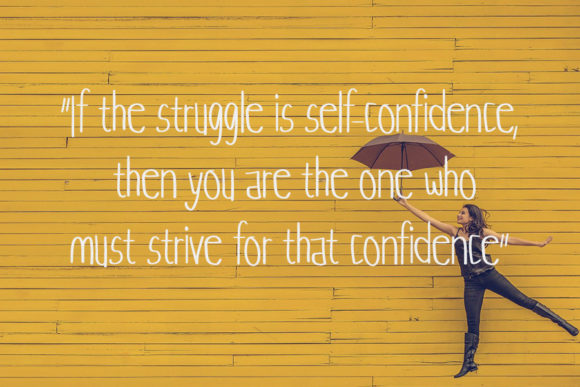
The Perfect California Dream: Introducing California Font
Have you ever stumbled upon a beautifully designed magazine or brochure that caught your eye? The moment you saw it, you knew you wanted to create something just as stunning. For designers, the quest for the perfect font is a never-ending journey. But what if I told you that there’s a font that embodies the carefree spirit of California, perfect for making your designs shine?
Meet the California Font, a simple yet elegant handwritten font designed for maximum readability. With its clean lines and well-spaced letters, this font is ideal for magazine titles, name tags, labels, and any other project where clarity is key. Its versatility makes it a valuable asset for designers, allowing them to create a wide range of designs that exude a relaxed, West Coast vibe.
California Font Key Features
- Unique Characteristics: California Font features a distinctive, cursive script with a relaxed, casual feel, making it ideal for use in creative and informal contexts.
- Font Style: California Font is a script font, characterized by its flowing, handwritten style, which adds a touch of elegance and sophistication to any design.
California Font Review
When I first saw California Font, I was immediately drawn to its laid-back vibe ✨. The font’s clean lines and rounded edges evoke the feeling of a California sunset, and it’s perfect for creating a relaxed and casual atmosphere. The font is highly legible, making it ideal for body text, and it pairs well with a variety of font combinations.
One of the things I love about California Font is its versatility ✨. It’s suitable for a wide range of designs, from logos to brochures, and it’s especially great for creating a retro or vintage look. The font also comes in a range of weights, from light to bold, which gives designers a lot of flexibility when it comes to creating contrast and visual interest.
- ⚠️ The font may not be the best choice for formal or corporate designs, as it can come across as too casual.
- ⚠️ California Font may not be suitable for designs that require a lot of fine details, as the font’s rounded edges can make it difficult to read at small sizes.
Overall, I think California Font is a great addition to any designer’s toolkit. While it may have some limitations, its versatility and laid-back vibe make it a great choice for a wide range of designs. With its clean lines and highly legible text, it’s a great font for creating a relaxed and casual atmosphere.
Tips for Getting the Most Out of California Font
For the best results, use California Font in combination with other clean and modern fonts. Experiment with different font sizes and colors to create visual interest. Avoid using California Font in small text sizes, as it can be difficult to read.
California Font is commonly used in:
- Travel and hospitality branding
- Modern and minimalist design